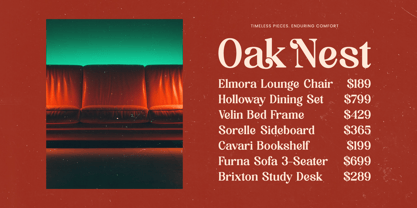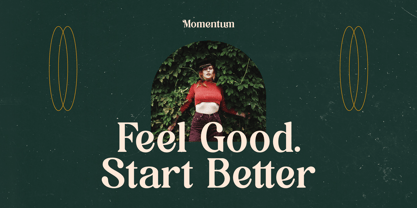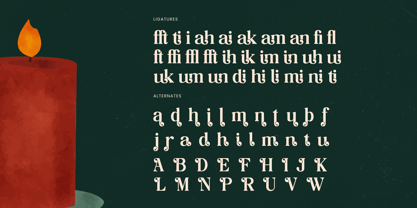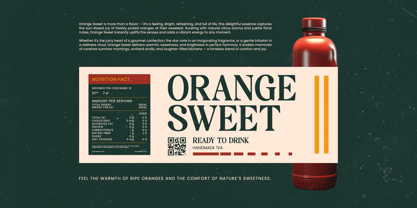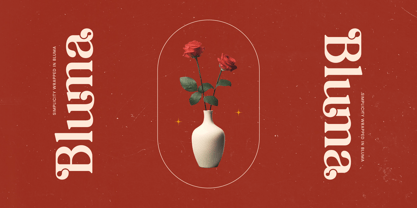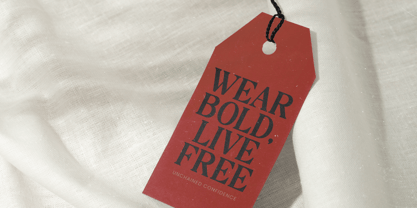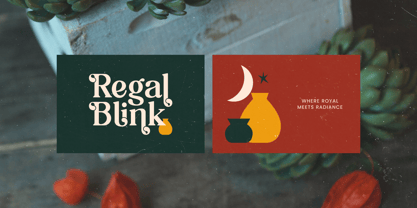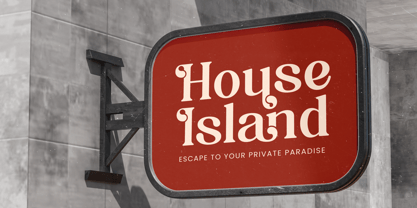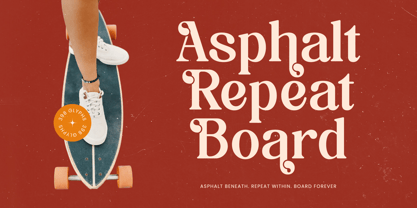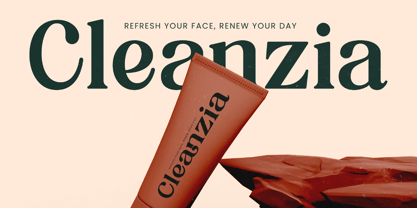
Candle Midnight
The Candle Midnight Font Family was designed by Heru Utama Putra and published by Timelesstype Studio. Candle Midnight contains 2 styles and family package options.
Candle Midnight - Groovy Serif Display Font , from Timelesstype, Suitable for any projects such as: logos, branding projects, homeware designs, product packaging, mugs, quotes, posters, shopping bags, t-shirts, book covers, name card, invitation cards, greeting cards, label, photography, watermark, special events, and all your other luxury and beautiful projects that need a Luxury Serif taste.